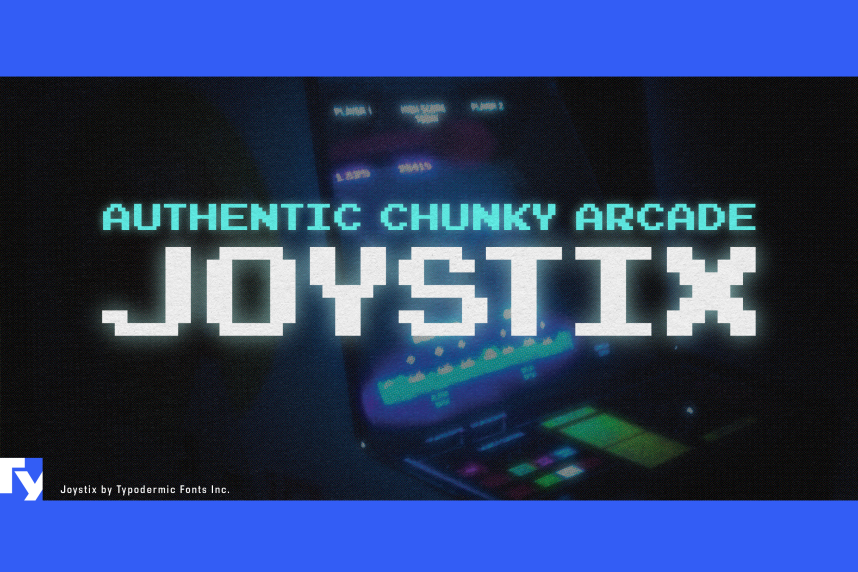
Joystix Font, which was designed by Ray Larabie and published by Typodermic, belongs to the bitmap and display sans serif typeface family.
This font was originally released on October 20, 1997, with the goal of capturing the look of classic arcade lettering, drawing direct inspiration from Atari’s 1976 racing game Sprint.
Joystix Font